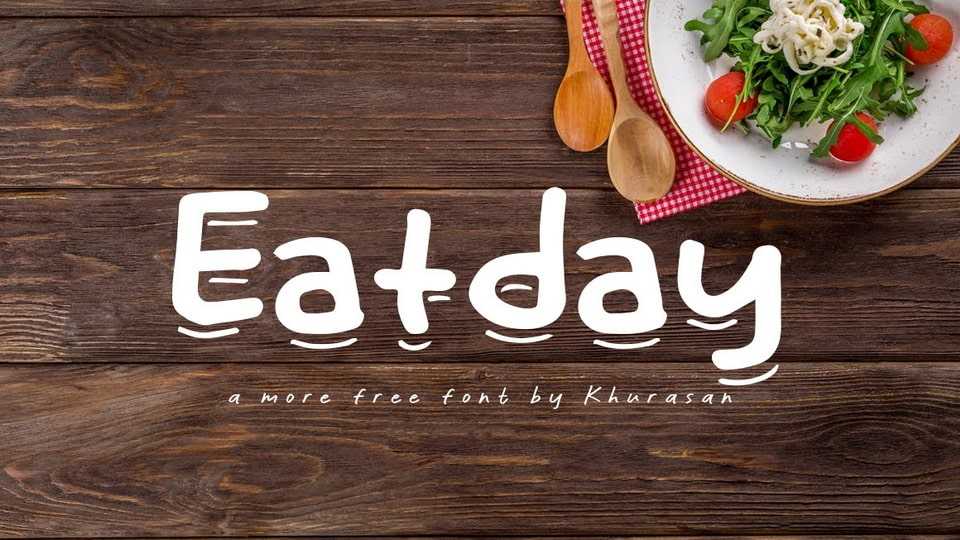
Download Eatday font, a natural and playful hand drawn typeface. Eatday is perfect for writing out quotes for Instagram posts, wall art or greeting cards, crafts, packaging or branding.